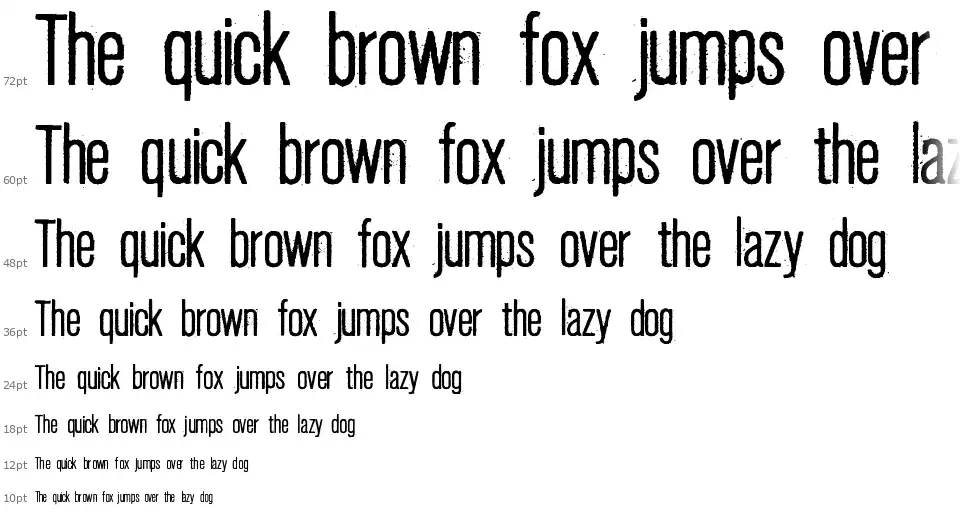
Fresco Stamp free font
Fresco Stamp Font - A great choice for highlighting your design elements. Web free fresco stamp font in ttf, woff2 or otf format. Web fresco stamp font free download. Fresco stamp fonts for websites and design projects. Fresco stamp € by 1001 free fonts.
Fresco Stamp Font - The fresco stamp font has been downloaded 14,087 times. Web fresco stamp font free download. Web download and install the fresco stamp font by 1001 free fonts. Fresco stamp fonts for websites and design projects. Web free fresco stamp font in ttf, woff2 or otf format.
Fresco Stamp Font - Web fresco stamp font free download. Fresco stamp € by 1001 free fonts. Fresco stamp is a fancy type font that can be used on any device such as. The fresco stamp font has been downloaded 14,087 times. Web fresco stamp font download is available free from fontget.
Fresco Stamp Font - Web download and install the fresco stamp font by 1001 free fonts. Fresco stamp is a fancy type font that can be used on any device such as. Web download fresco stamp font for free! A great choice for highlighting your design elements. The fresco stamp font has been downloaded 14,087 times.
Fresco Stamp Font - Web free fresco stamp font in ttf, woff2 or otf format. A great choice for highlighting your design elements. 103,705 downloads (13 yesterday) 100% free. Web download and install the fresco stamp font by 1001 free fonts. Web download fresco stamp font for free!
Fresco Stamp Font - Web download and install the fresco stamp font by 1001 free fonts. Fresco stamp is a fancy type font that can be used on any device such as. Fresco stamp € by 1001 free fonts. 103,705 downloads (13 yesterday) 100% free. A great choice for highlighting your design elements.